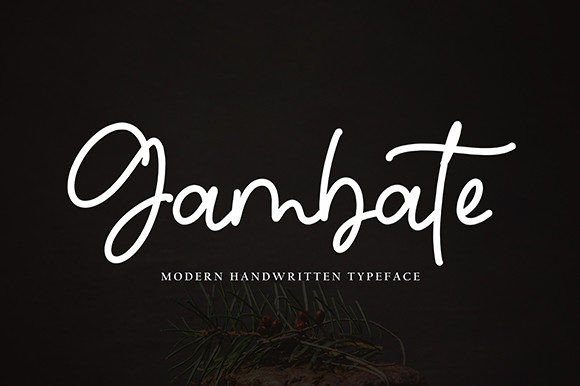
Step into the world of Gambate, a font that exudes charm and playfulness with every stroke. This enchanting script font, brought to life by the artistic duo Pineungtype and Missinklab, captures the essence of handwritten elegance with its casual and versatile style.
Gambate is not just a font; it's an invitation to unleash your creativity and make your designs come alive. With its free-flowing lines and authentic texture, Gambate effortlessly adds a personal touch to any project, whether you're crafting heartfelt messages, creating eye-catching logos, or designing stunning invitations.
Imagine the delight of your clients when they receive a heartfelt message written in Gambate's charming script. The font's natural flow and playful personality convey a sense of warmth and approachability, making your words resonate with a deeper emotional impact.
Elevate your branding efforts with Gambate's distinctive style. Its versatility shines across a wide range of applications, from elegant letterheads and business cards to captivating social media posts and eye-catching advertisements. Let Gambate be your secret weapon in creating a brand identity that leaves a lasting impression.
For the modern entrepreneur, Gambate is the perfect choice for crafting a unique and memorable e-signature. Its casual elegance adds a touch of professionalism while maintaining a personal and approachable feel. With Gambate, your e-signature will stand out and make a statement, leaving a lasting impression on clients and colleagues alike.
But Gambate's allure extends far beyond the digital realm. Unleash its potential in crafting beautiful wedding invitations, heartfelt greeting cards, and personalized gifts. Its charming script adds a touch of whimsy and romance, making every creation truly special.
Indulge in the endless creative possibilities that Gambate offers. Let its playful spirit ignite your imagination and transform your designs into captivating works of art. Discover the magic of Gambate today and unlock a world of creative expression.